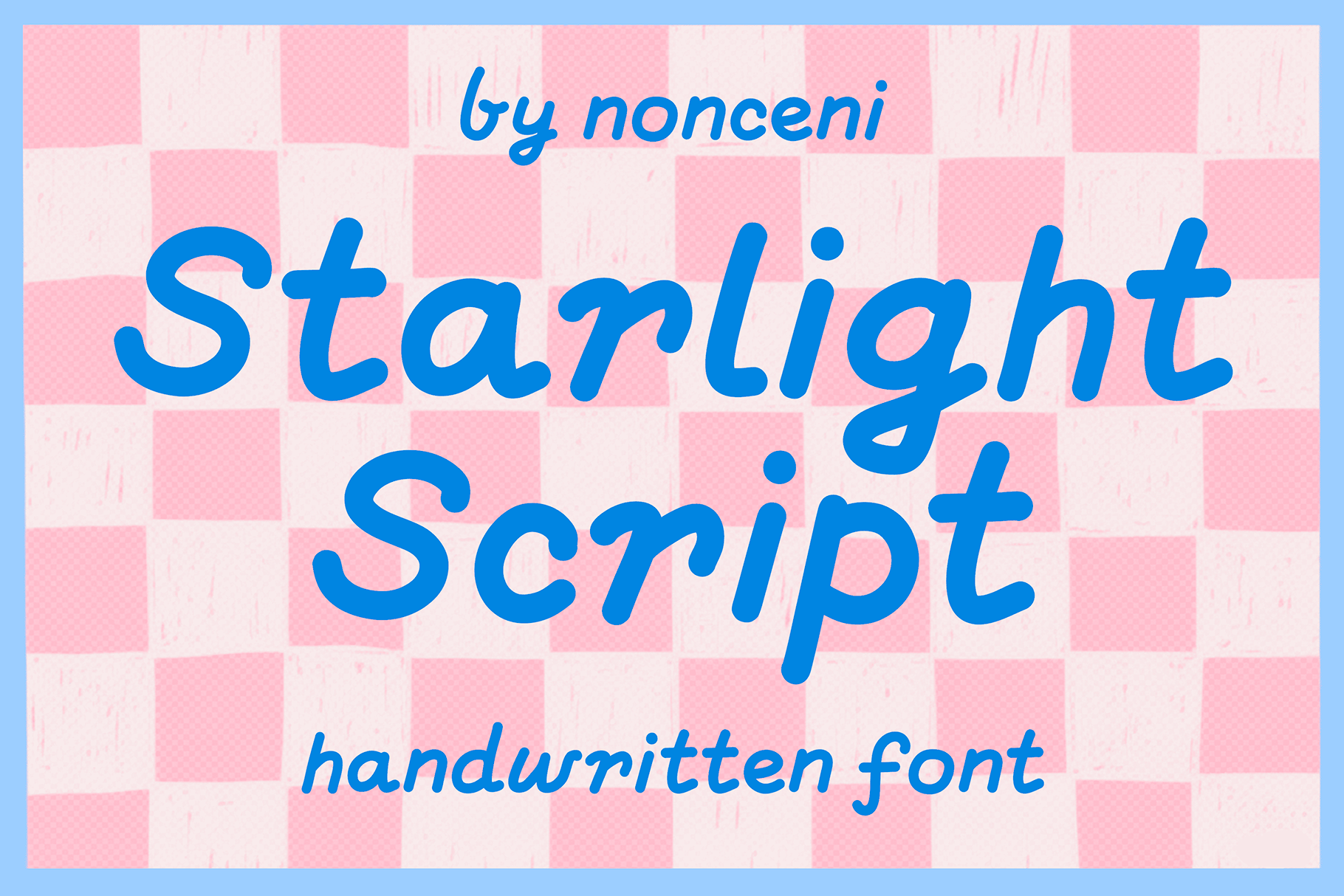
Starlight Script Handwritten Font
Perfect for cute branding, digital journaling, sticker design, and whimsical social media graphics, this friendly typeface adds a personal, handmade touch to any creative project.
Starlight Script is a soft, approachable script font that strikes the perfect balance between casual handwriting and clean legibility. This font features rounded terminals and a smooth, flowing rhythm that feels both cozy and modern.
Unlike traditional calligraphy, Starlight Script has a "bubbly" and youthful energy, making it feel like a neat note written in a personal diary or a friendly message on a greeting card.
Best Use Cases:
Starlight Script is incredibly versatile for projects that require a gentle, "aesthetic," or "coquette" vibe:
Digital Planning & Journaling: Perfect for GoodNotes templates, digital stickers, and personal diaries.
Small Business Branding: Ideal for "Thank You" cards, product labels for handmade goods, and boutique logos.
Apparel & Merchandise: Great for "positive quote" t-shirts, tote bags, and embroidered patches.
Content Creation: Add a soft, human touch to your YouTube thumbnails, Instagram Stories, and Pinterest pins.
Stationery: Use it for wedding "Save the Dates," baby shower invitations, or whimsical letterheads.